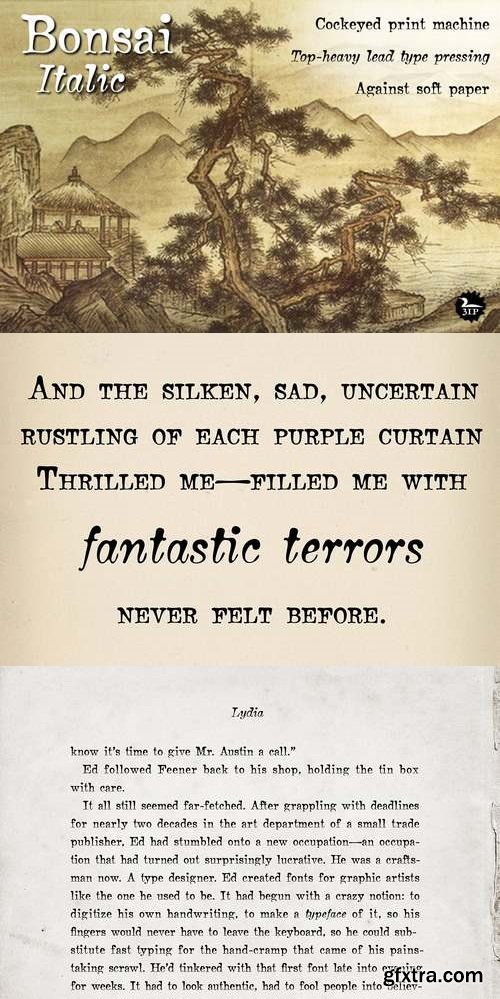
Bonsai Font Family
In an old handbook on bonsai—the Japanese art of dwarfed potted trees—I noticed the type was bad. Old worn lead type, I suspect, spread wide at the tops of characters and nearly disappearing at the bottoms. But far from being a distraction, I found this top-heavy text somehow warm, familiar, and easy on the eyes. Inspired, I made a typeface. (Didn’t take me long to decide on a name for it either: a name with a double-meaning, based both on its look and its inspiration.) Bonsai’s roman and true italic styles work well at small point sizes or in display situations. Use to evoke a curiously retro feel—like déjà vu.